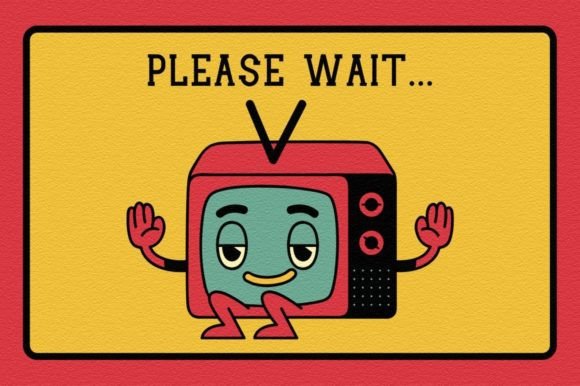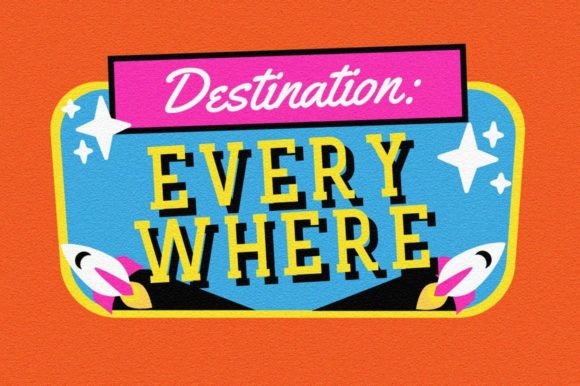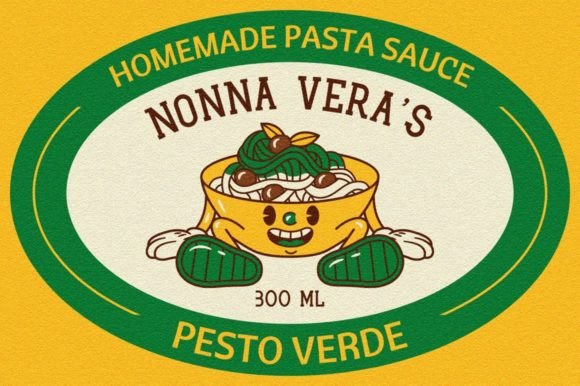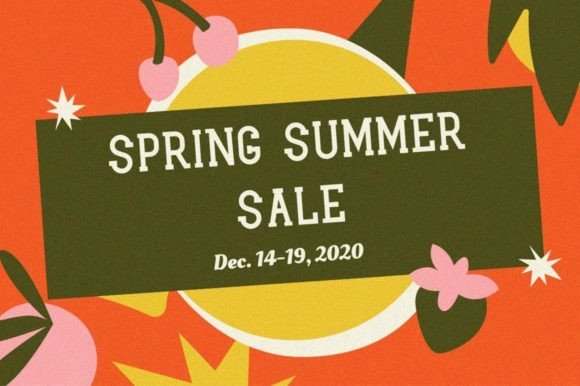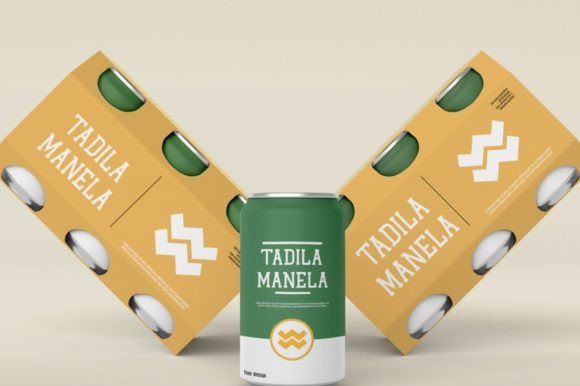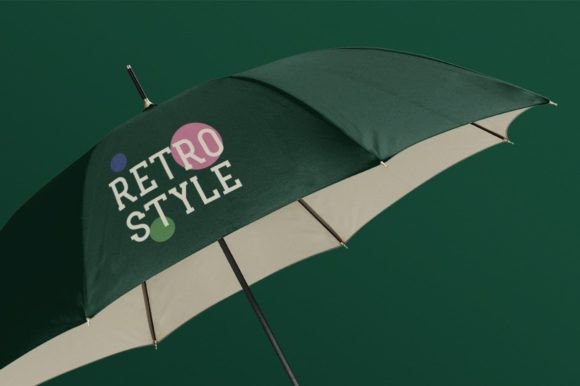
Discover the Timeless Charm of Brank Font: A Vintage-Inspired Typeface for Modern Designs
Are you a designer or crafter looking for a font that embodies the essence of retro charm while still feeling modern and fresh? Look no further than Brank Font, a unique typeface that seamlessly blends vintage vibes with contemporary flair. In this article, we’ll dive into the world of Brank Font, exploring its distinctive features, uses, and benefits for your design projects.
The Retro Revival: What Makes Brank Font Special
Brank Font is a carefully crafted typeface that draws inspiration from the iconic designs of the 1960s and 1970s. Its vintage roots are evident in its classic lines, elegant curves, and nostalgic feel. However, what sets Brank apart is its ability to adapt to modern design sensibilities, making it an incredibly versatile font for a wide range of projects.
Whether you’re creating a retro-themed poster, a vintage-inspired logo, or a modern website with a nostalgic twist, Brank Font is the perfect choice. Its clear, clean, and fun design ensures that your text remains legible and engaging, while its retro undertones add a touch of whimsy and personality.
Key Features of Brank Font
So, what makes Brank Font so special? Here are some of its key features:
- Unique blend of vintage and modern styles: Brank Font combines the best of both worlds, offering a distinctive retro aesthetic with a modern twist.
- Clear and clean design: The font’s elegant lines and curves ensure that your text is always easy to read, even at smaller sizes.
- Fun and playful feel: Brank Font’s nostalgic charm adds a touch of personality to your designs, making them more engaging and memorable.
- Highly versatile: Use Brank Font for a wide range of projects, from posters and logos to websites and social media graphics.
Why Designers and Crafters Love Brank Font
Brank Font has quickly become a favorite among designers and crafters, and for good reason. Here are just a few reasons why:
- Instant recognition: Brank Font’s unique design makes it instantly recognizable, adding a touch of personality to your projects.
- Easy to use: The font is incredibly easy to use, even for those with limited design experience.
- Customizable: Experiment with different colors, textures, and effects to make Brank Font truly your own.
- Timeless appeal: Brank Font’s vintage-inspired design ensures that your projects will remain stylish and relevant for years to come.
How to Use Brank Font in Your Designs
Ready to add Brank Font to your design toolkit? Here are some ideas to get you started:
- Retro-themed posters: Create eye-catching posters that evoke the spirit of the 1960s and 1970s.
- Vintage-inspired logos: Add a touch of nostalgia to your brand identity with a custom logo featuring Brank Font.
- Modern websites with a retro twist: Use Brank Font to add a touch of personality to your website’s typography.
- Social media graphics: Create engaging social media graphics that showcase your brand’s unique personality.
In conclusion, Brank Font is a unique and versatile typeface that offers the perfect blend of vintage charm and modern flair. Whether you’re a designer, crafter, or simply someone who appreciates great design, Brank Font is an excellent addition to your toolkit. With its clear, clean, and fun design, Brank Font is sure to become an instant favorite for any project that requires a touch of retro nostalgia and modern style.